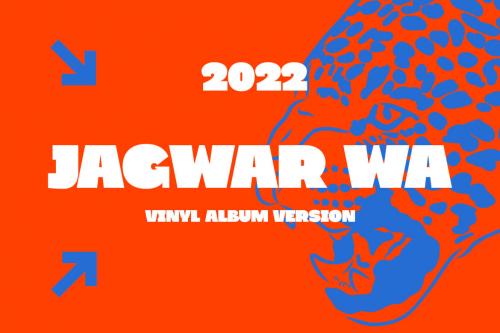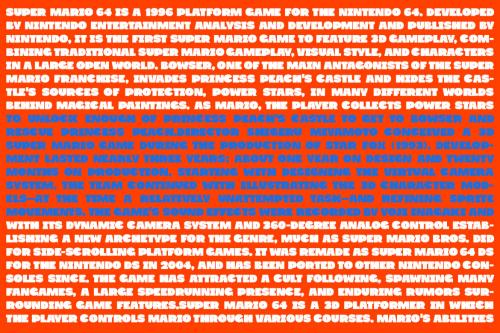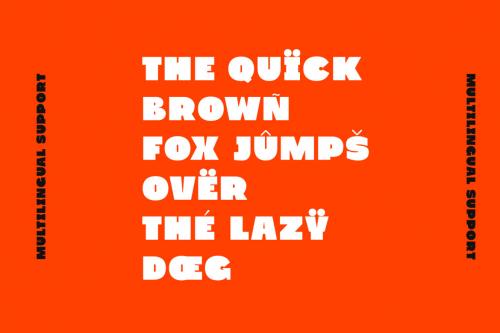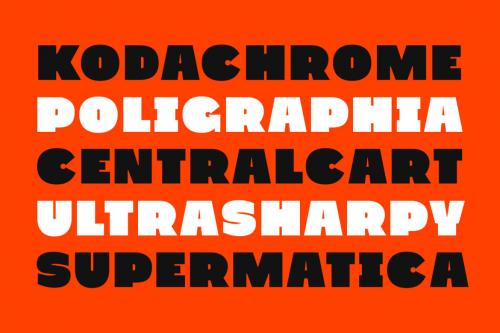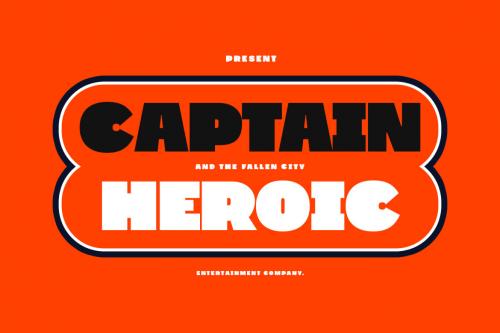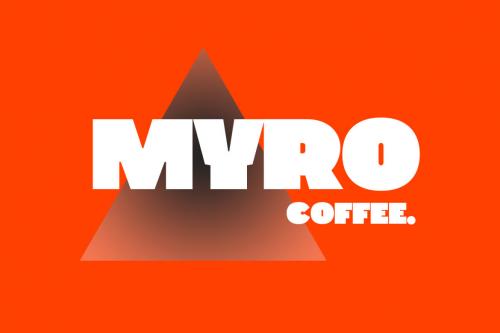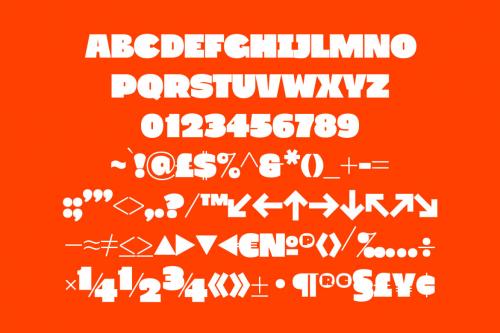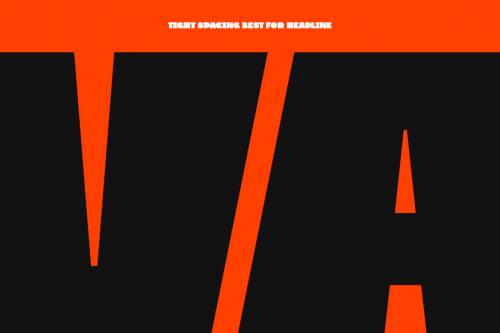
Winks is an all caps quirky display sans font. With bold contrast stroke, fun character with a bit of ligatures. To give you an extra creative work. Winks font support multilingual more than 100+ language. This font is good for logo design, Social media, Movie Titles, Books Titles, a short text even a long text letter and good for your secondary text font with sans or serif. Make a stunning work with Winks font.